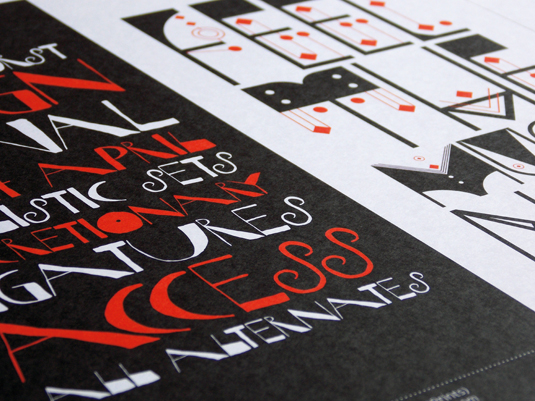
Little Black Font Book
Stick HypeForType’s latest type catalogue in your pocket and you'll have a world of typography at your fingertips.
HypeForType’s latest type catalogue isn’t just about showcasing their wares - it’s intended to inspire typographers and give a sense of how each typeface can be used.
It breaks away from the traditional black on white print to display lettering on red, black and white, and it’s small and light enough to carry in your laptop bag or iPad sleeve for portable inspiration.
Handy and compact - great to go in your bag or on your desk. A fantastic collection in a creative format.